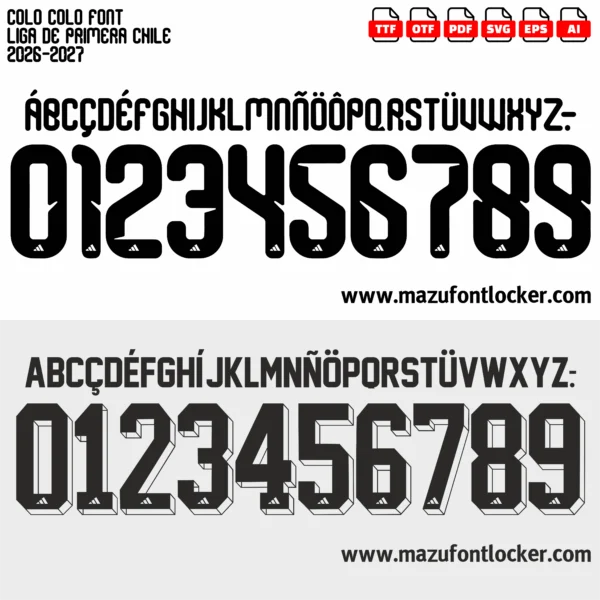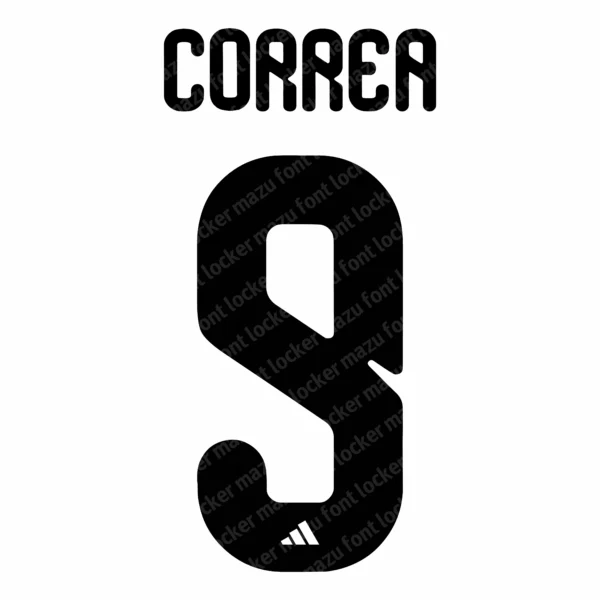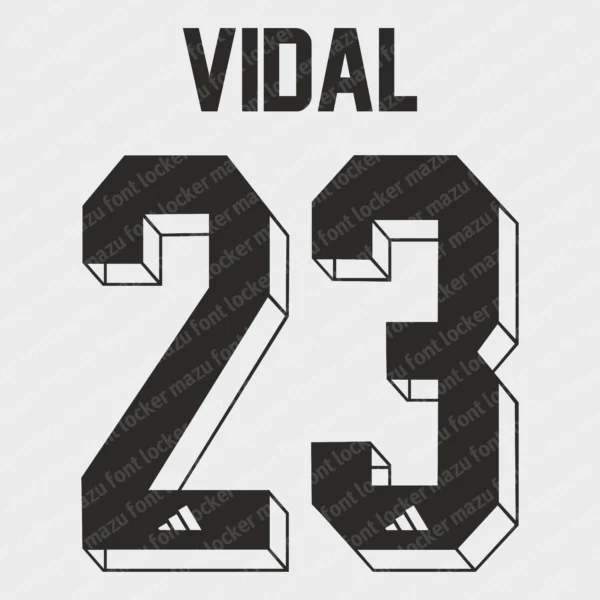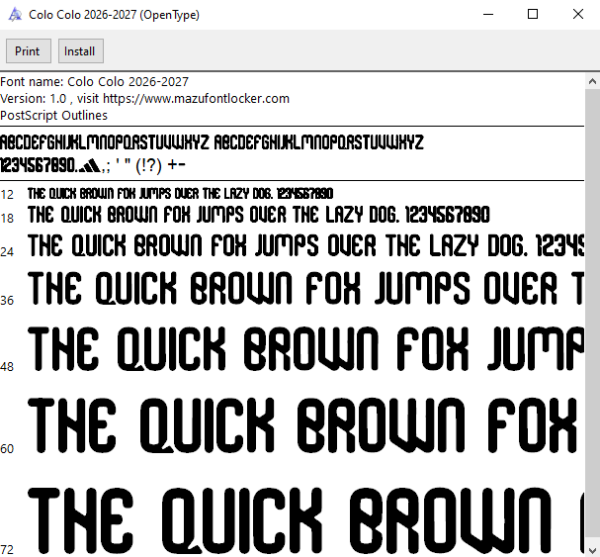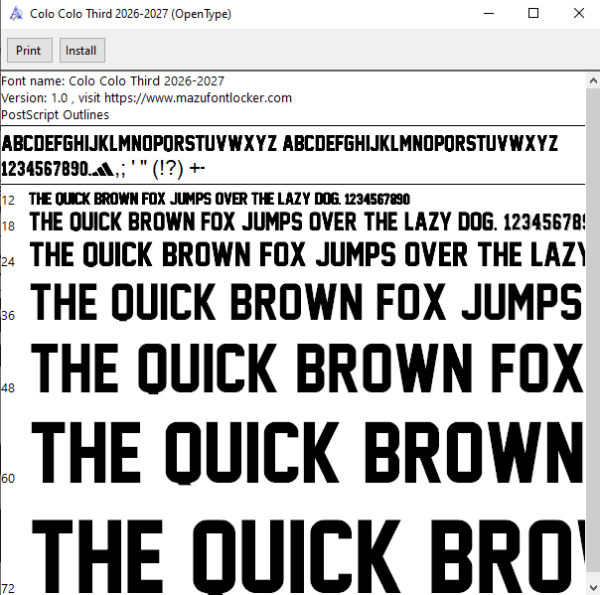
Colo-Colo 2026-2027 Font Vector – Legendary Los Albos Masterpiece
This font captures the commanding, iconic, fearless, and ultra-premium lettering that perfectly embodies the club’s legendary Chilean Cacique heritage fused with relentless fighting spirit, delivering unmatched passion, explosive energy, timeless sophistication, and pure football fire for premium jersey mockups, football designs, epic sports visuals, dominating fan creations, and elite branding projects.
Colo-Colo 2026-2027 Font Vector – Authentic Colo-Colo Typeface
The Colo-Colo 2026-2027 Font Vector is a premium typeface that accurately recreates the official match lettering worn by Colo-Colo during the 2026-2027 Liga de Primera and cup campaigns. This high-quality vector font kit captures the bold, classic, and historic typography that represents the pride, tradition, and fighting spirit of El Cacique.
Designed for professional designers and passionate Colo-Colo fans, the Colo-Colo 2026-2027 Font Vector delivers perfect authenticity for creating realistic jersey mockups, fan merchandise, matchday posters, social media graphics, and Chilean football content. It pairs beautifully with the iconic home kit featuring the famous white colours of Los Albos.
Why Choose Colo-Colo 2026-2027 Font Vector
This font stands out because of its sharp vector precision and strong club identity. Every letter and number is crafted to match the exact style used on the players’ shirts during the 2026-2027 season. Whether you are making realistic kit templates or exciting Colo-Colo content, the Colo-Colo 2026-2027 Font Vector gives your designs that authentic Albo look.
The letterforms in the Colo-Colo 2026-2027 Font Vector are tall, bold, and highly readable. The strokes have a strong, clean weight with excellent edge definition that looks powerful on the back of jerseys while maintaining classic Chilean heritage and modern strength.
- Full uppercase A–Z and numbers 0–9 in authentic Colo-Colo 2026-2027 style
- Special Colo-Colo crest glyph – Press the “:” (colon) symbol to insert the Colo-Colo logo
- Multilingual Latin character support including diacritics
- Includes the exact crest glyph placement used under player numbers